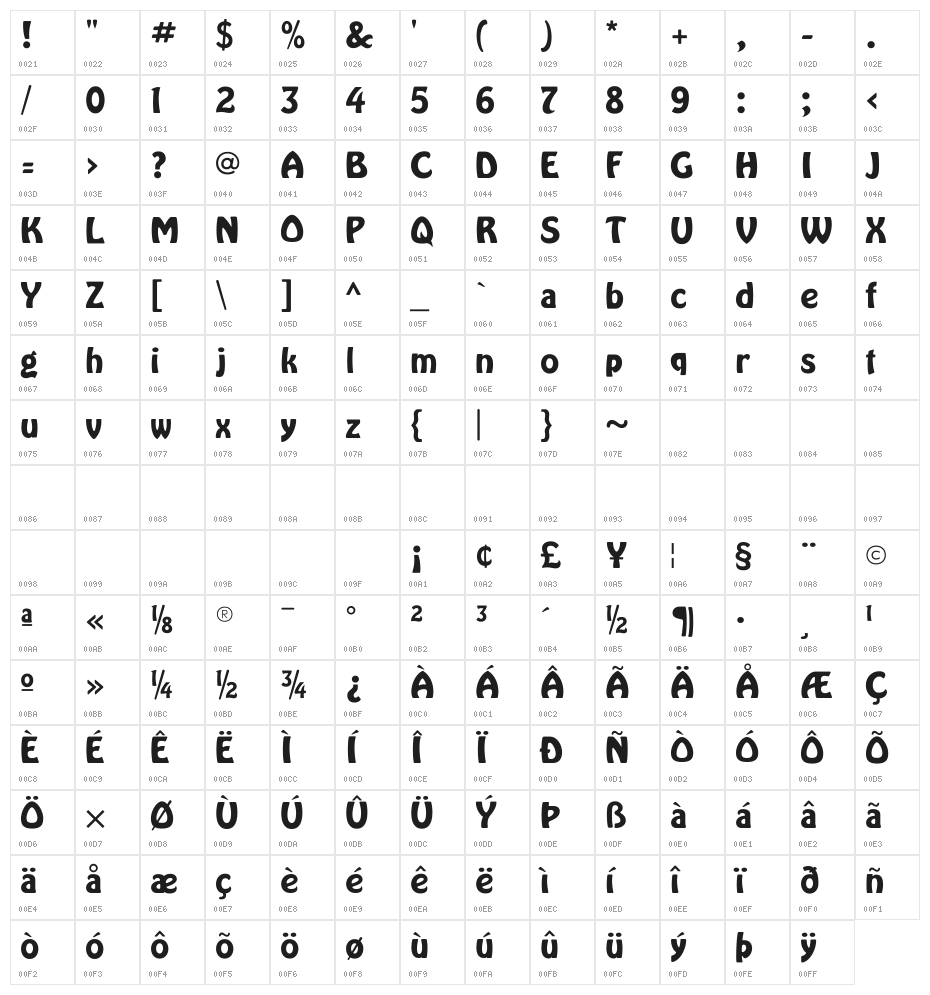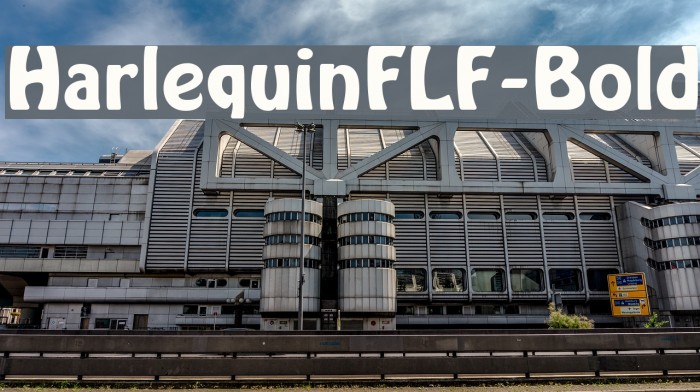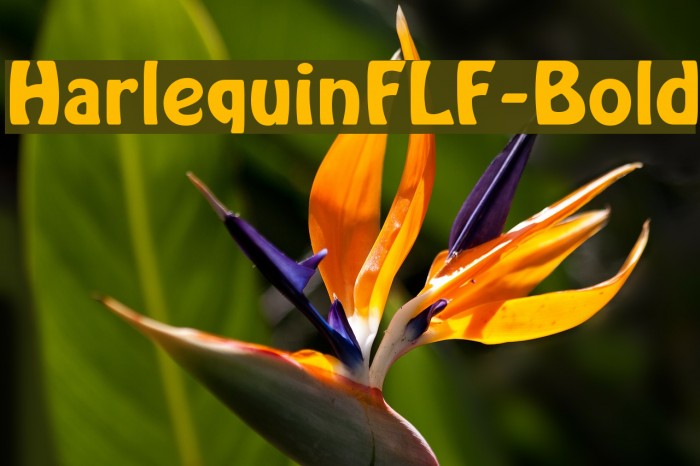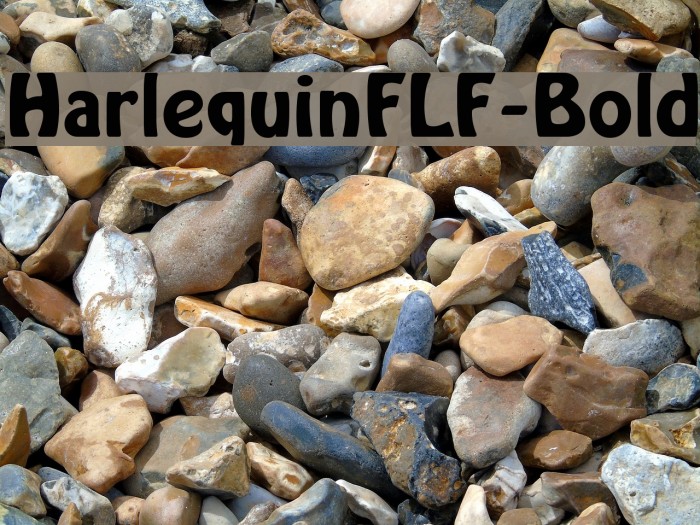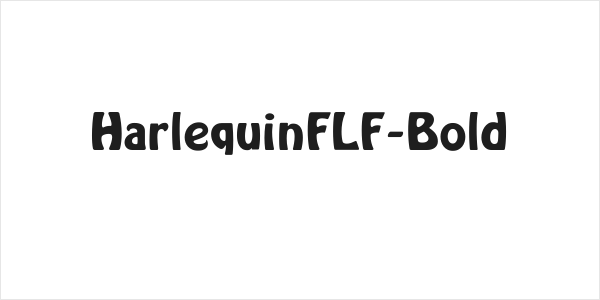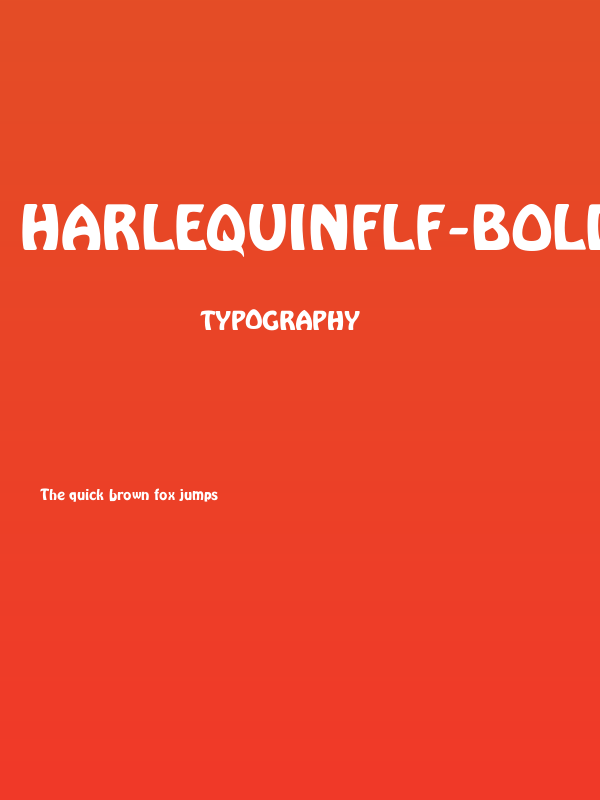
HarlequinFLF-Bold Font
HarlequinFLF-Bold Description
This bold and playful font features thick, rounded strokes that give it a whimsical and friendly appearance. The characters are slightly condensed, with a consistent stroke width that maintains readability while adding a touch of fun. The uppercase and lowercase letters are well-balanced, with a slight slant that adds to the dynamic feel of the typeface. The numerals and special characters are designed to match the overall style, ensuring a cohesive look across all text elements. This font is ideal for projects that require a bold statement with a touch of personality.
| Proposed Projects | Ideal for children's books, playful branding, posters, and creative advertising. |